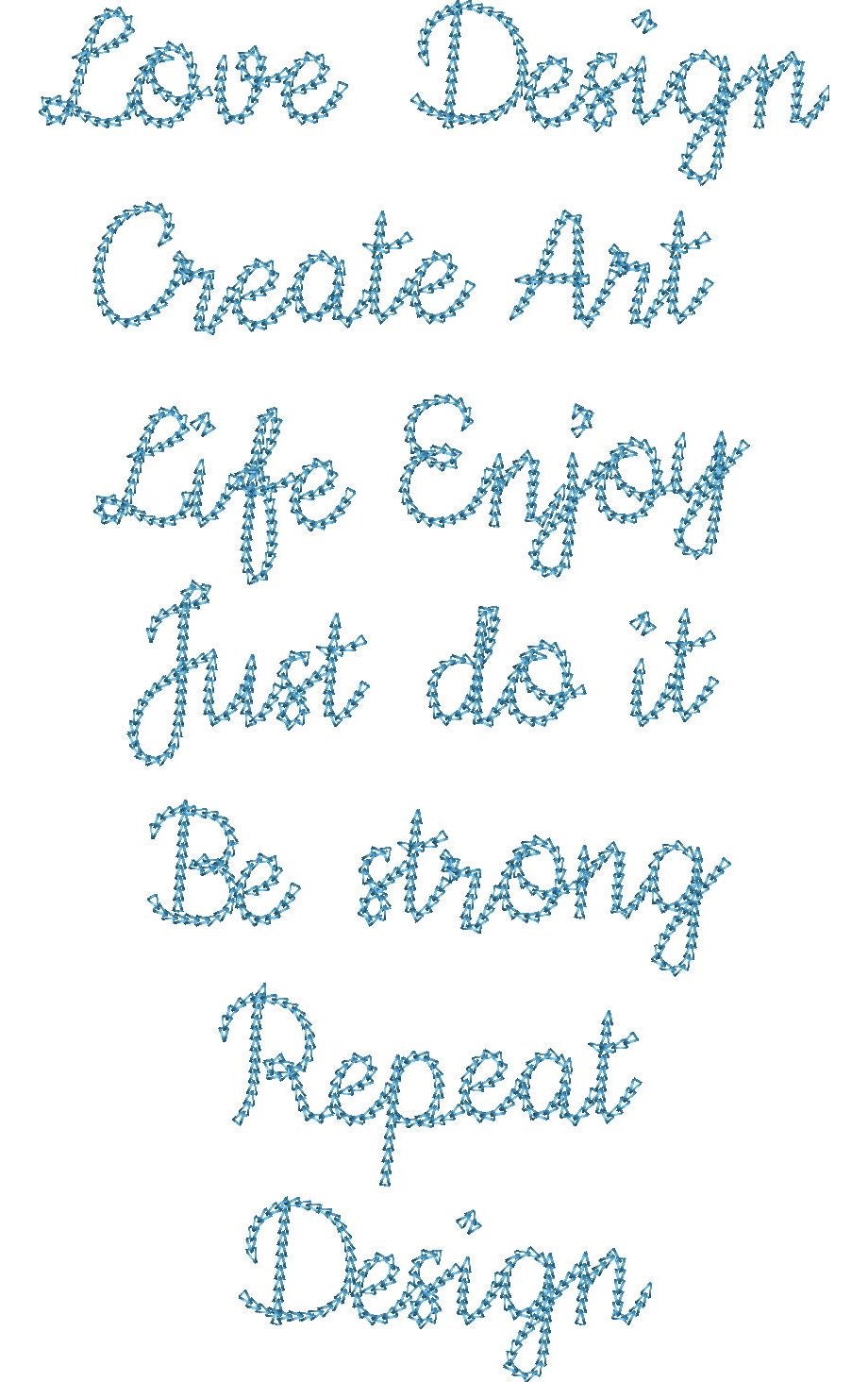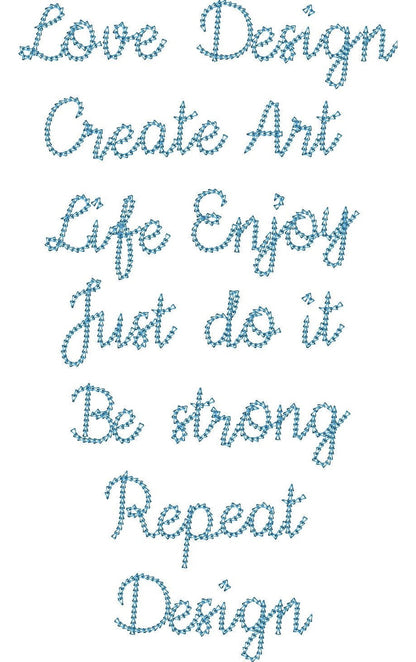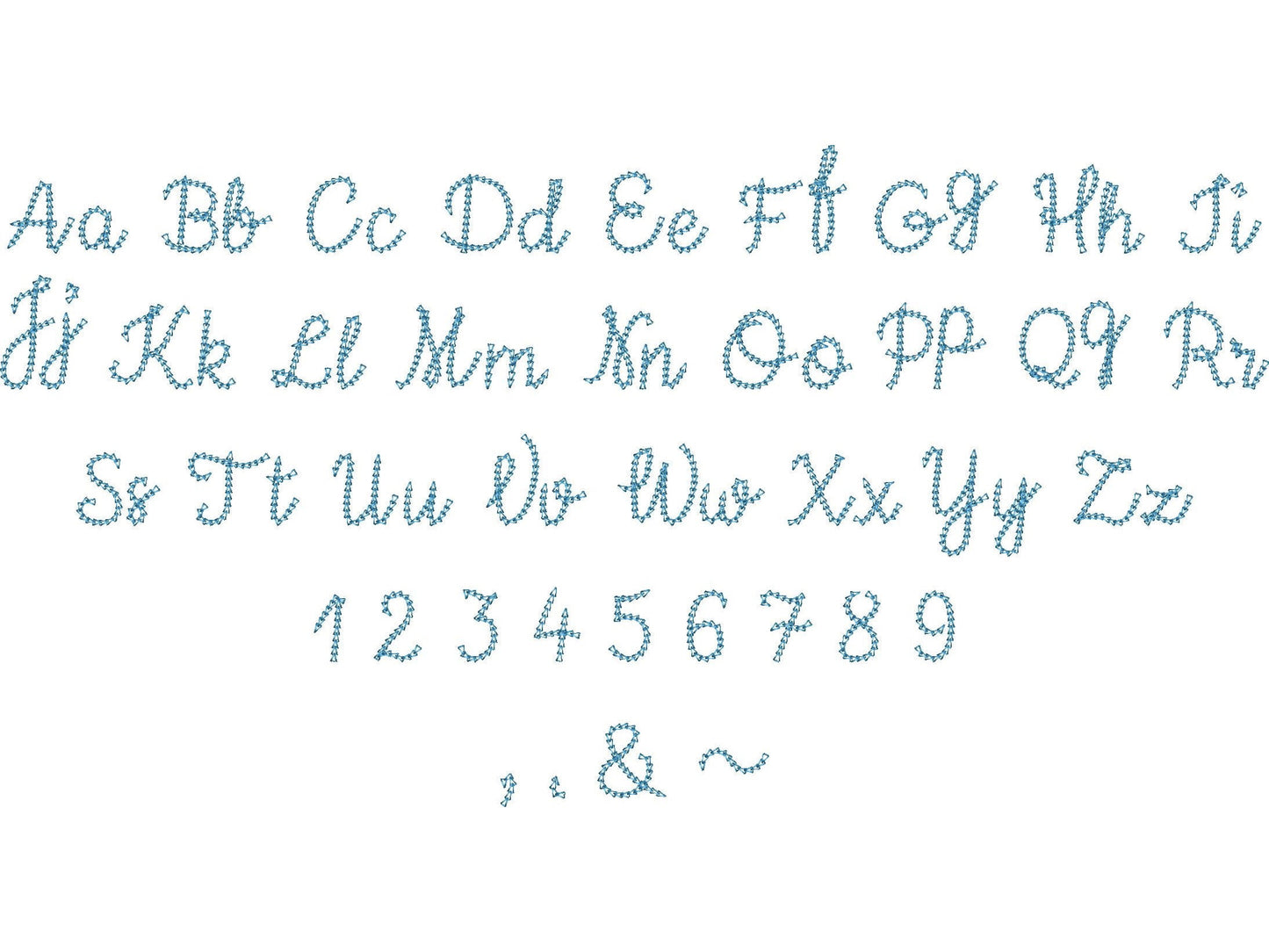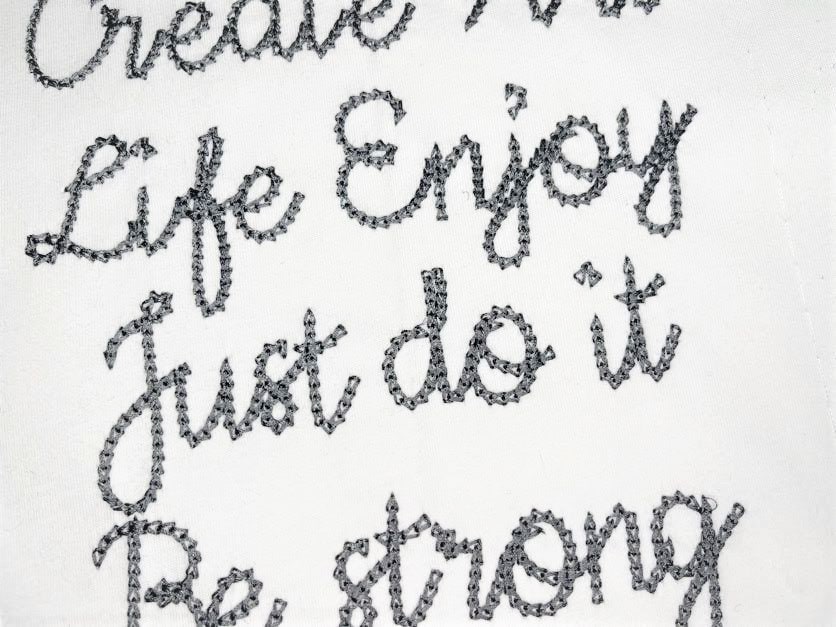
Mini Chain Stitch Handwritten Script Font
Or click to open the linkA mini handwritten script in quick light chain stitch. Sweet for kids' names, small monograms and little sayings.
Uppercase and lowercase letters, numbers and punctuation, in four mini sizes: 1, 1.3, 1.5 and 1.9 inches.
- Mini light stitch chain script font
- Uppercase and lowercase letters, numbers, punctuation
- 4 sizes, 1 to 1.9 in